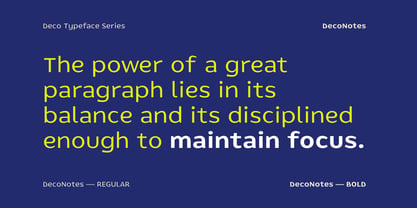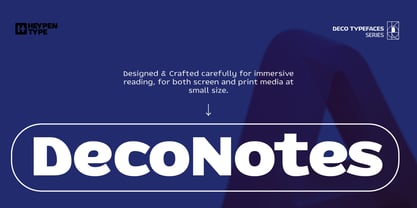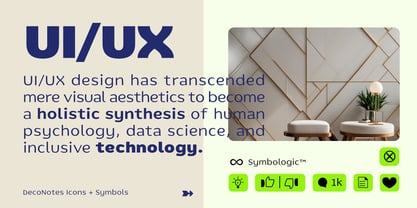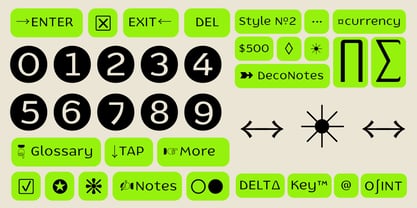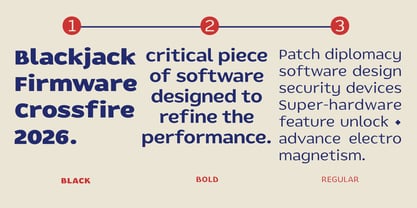
Deco Notes
by Heypentype
The Deco Notes Font Family was designed by Rofiki Anas Maruf and published by Heypentype. Deco Notes contains 3 styles and family package options. More about this family
Deco Notes are part of Deco Typeface Series, a series of typefaces based on Art Deco and Art Noveau posters research. Deco Notes designed and optimized for long-text and immersive reading experience, both on screen and prints media especially at small point-size. We recommend using this typefaces on bodytext or long paragraph. For example: as editorial writing, article, blogs, and both textbooks or fiction books. Deco Notes equipped with a lot of opentype features geared toward fine typography, this typefaces have oldstyle number, superior, numerator, denumerator, fractions, ordinal especially for french, spanish, and english ordinal first, second, and third, and many more to assist typographer when setting up books. Deco Notes covers almost all latin script languange, as per hyperglot font test this typefaces covers more than 380+ latin script language.
Designers: Rofiki Anas Maruf
Foundry: Heypentype